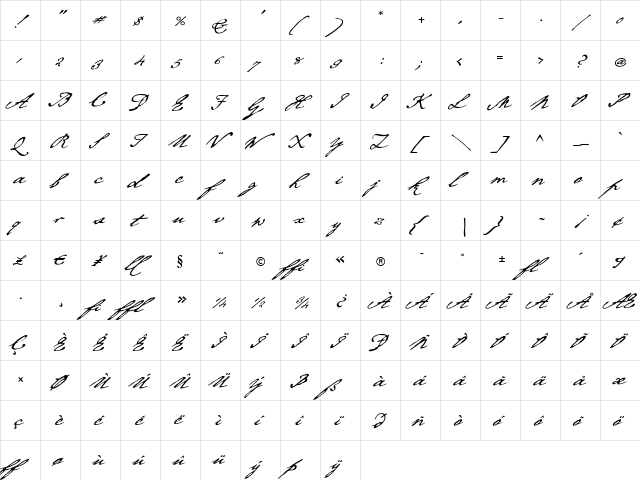
P22Chatham Regular
Design Context for P22Chatham Typeface
P22Chatham is a composed and adaptable typeface that performs quietly and consistently across a wide range of design contexts.